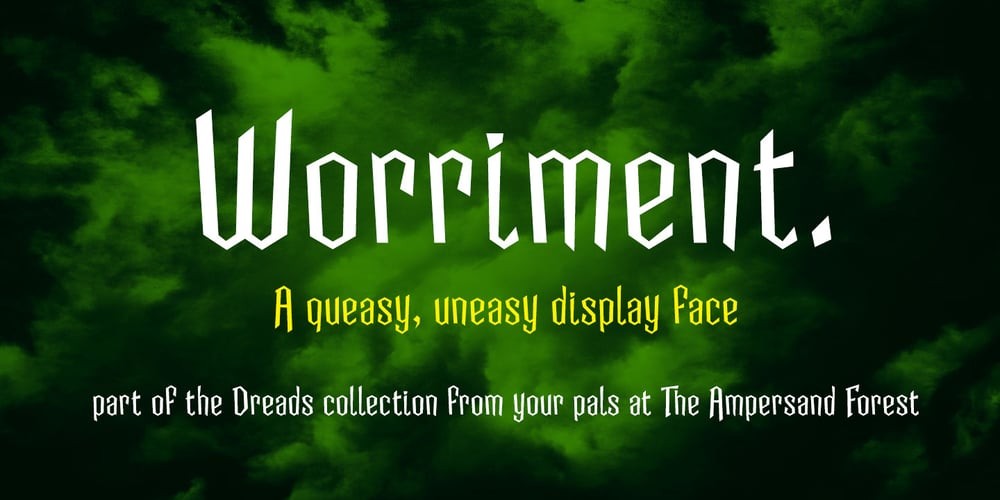
Worriment Font Family was designed by DC Scarpelli and published by The Ampersand Forest. Worriment contains 1 styles and family package options. Worriment is a simple, one-off typeface; part of the Dreads collection from the Ampersand Forest. He was born of a whimsical sense of queasiness and unease — he’s not just scary, he’s Scary Fun! A little kitsch, a little horror. Great for use on Halloween-themed designs, and reminiscent of a “wizarding” look. In terms of letterforms, Worriment is a quirky blackletter-latin hybrid with a sharp, slightly bouncy baseline, and jangly angles, suitable for display use.